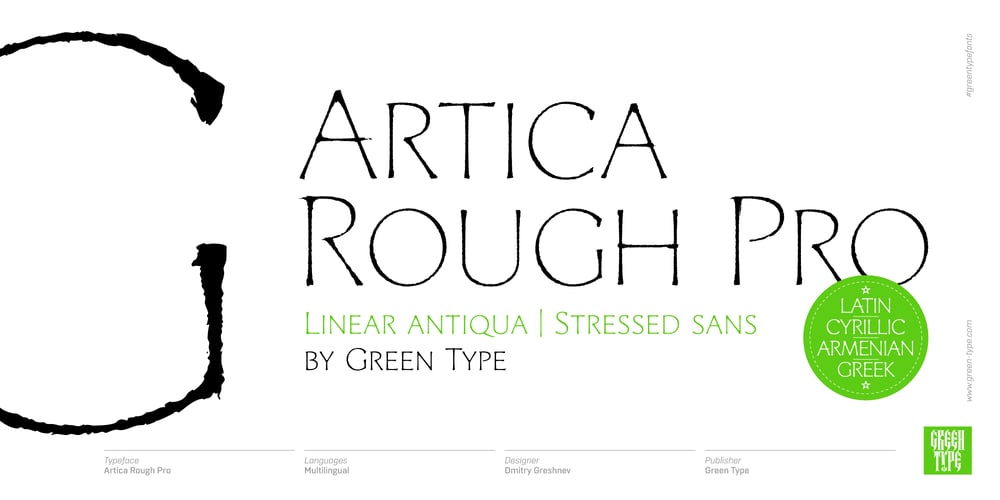
Artica Rough Pro Font Family was designed by Dmitry Greshnev, Ruben Khachatur Hakobyan and published by Green Type. Artica Rough Pro contains 1 styles and family package options. Artica Rough Pro is an elegant display typeface. It was inspired by classic Roman letterforms. Artica Rough Pro supports Latin, Cyrillic, modern Greek and Armenian scripts, and includes swash initial, final forms, stylistic alternates and ligatures.